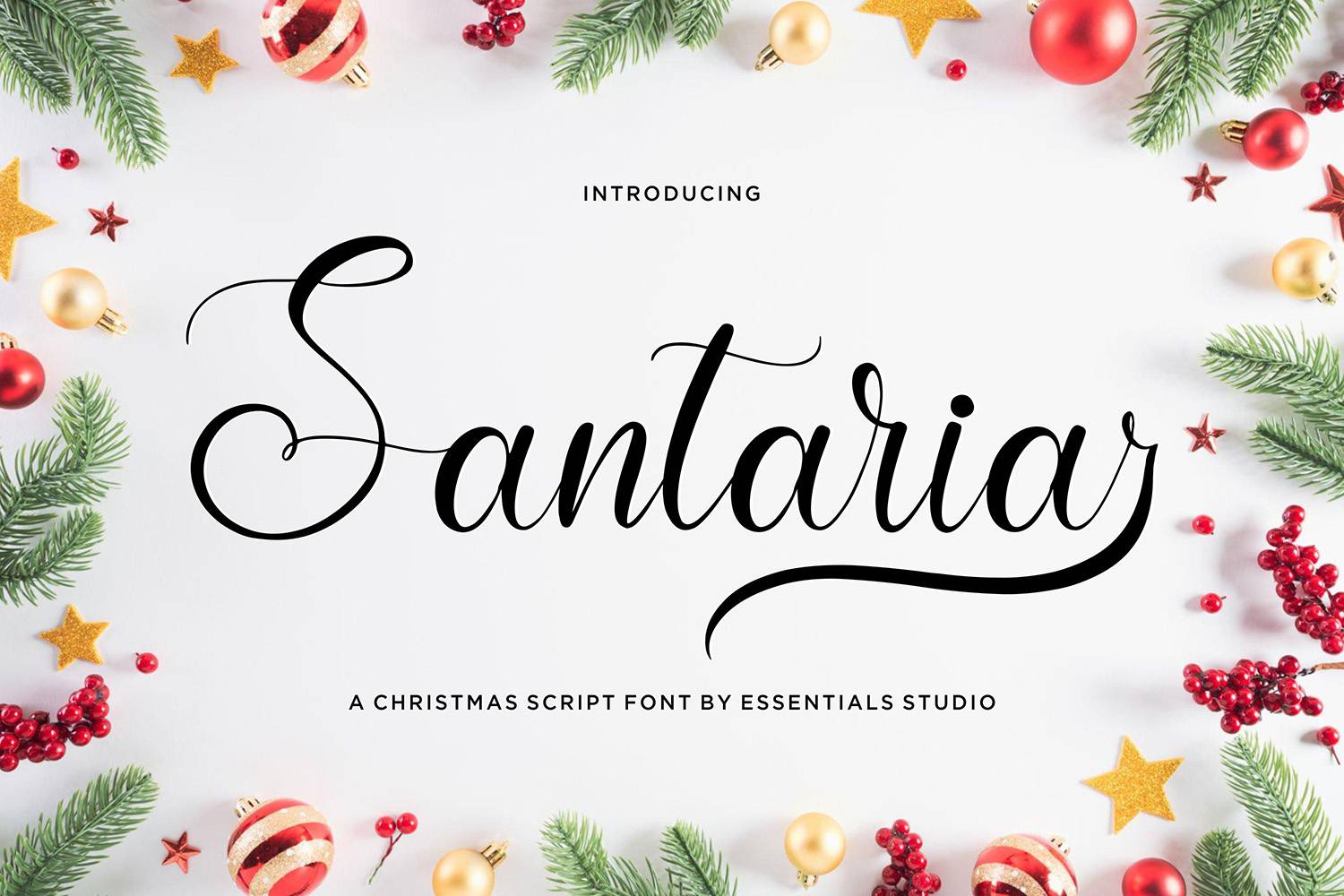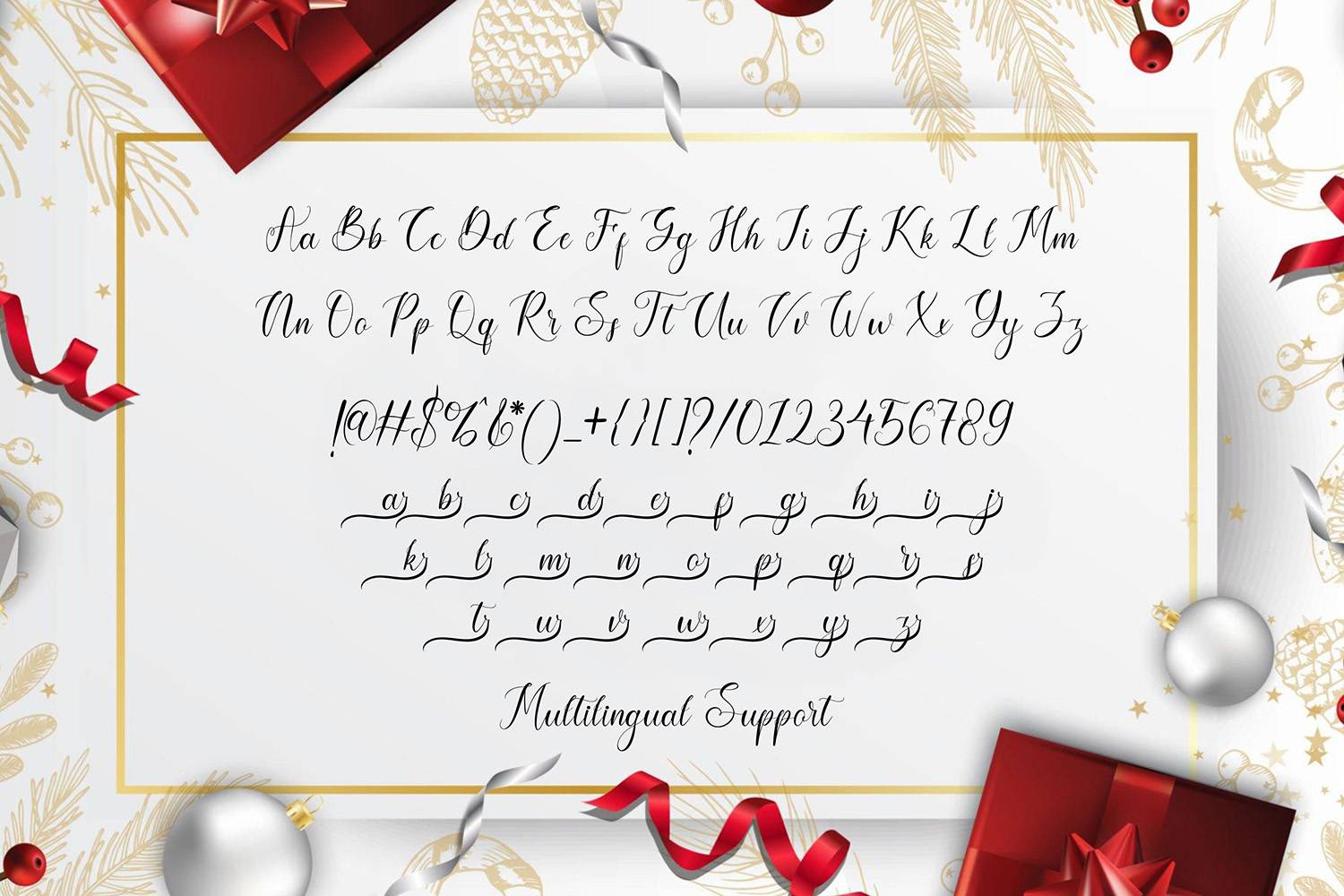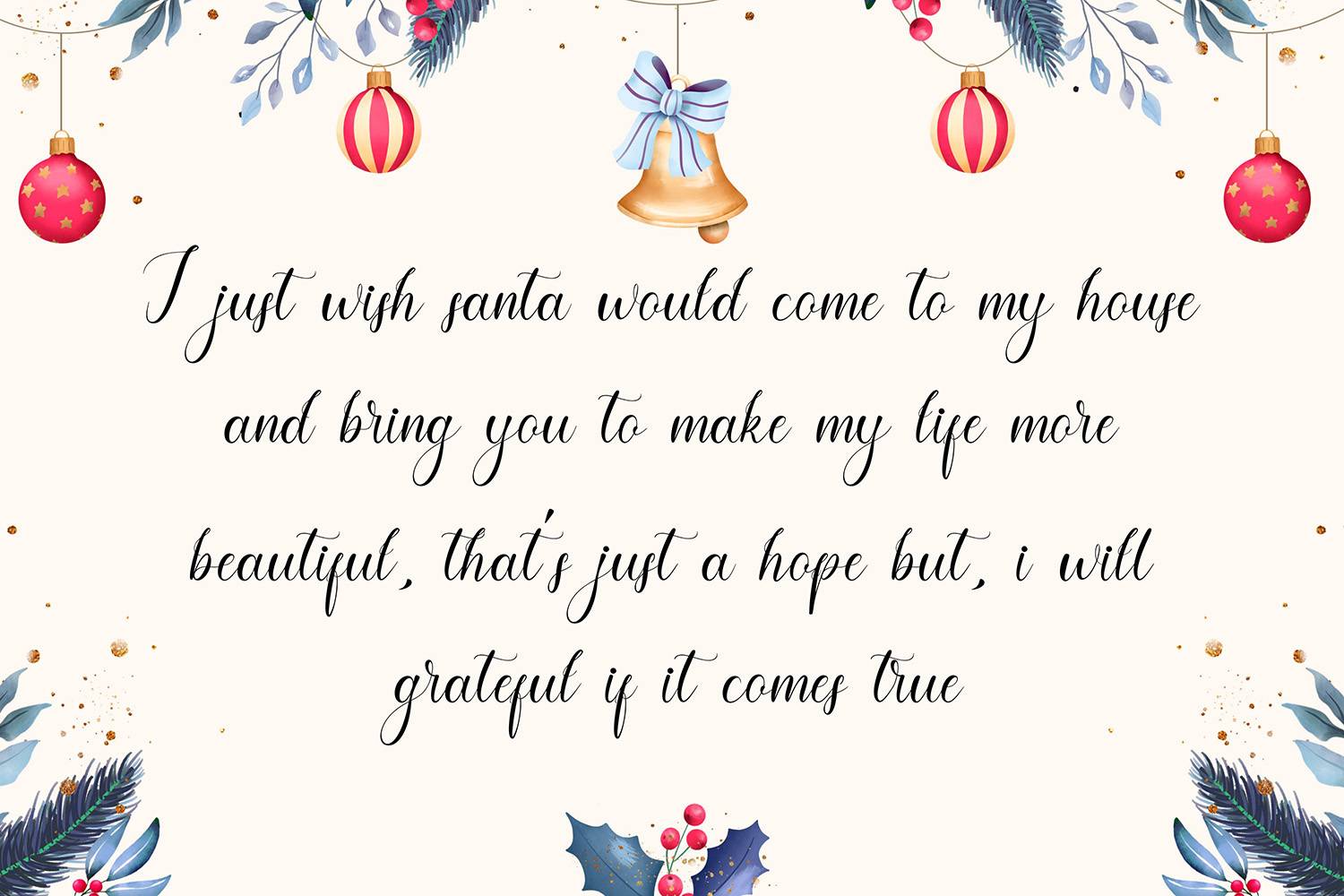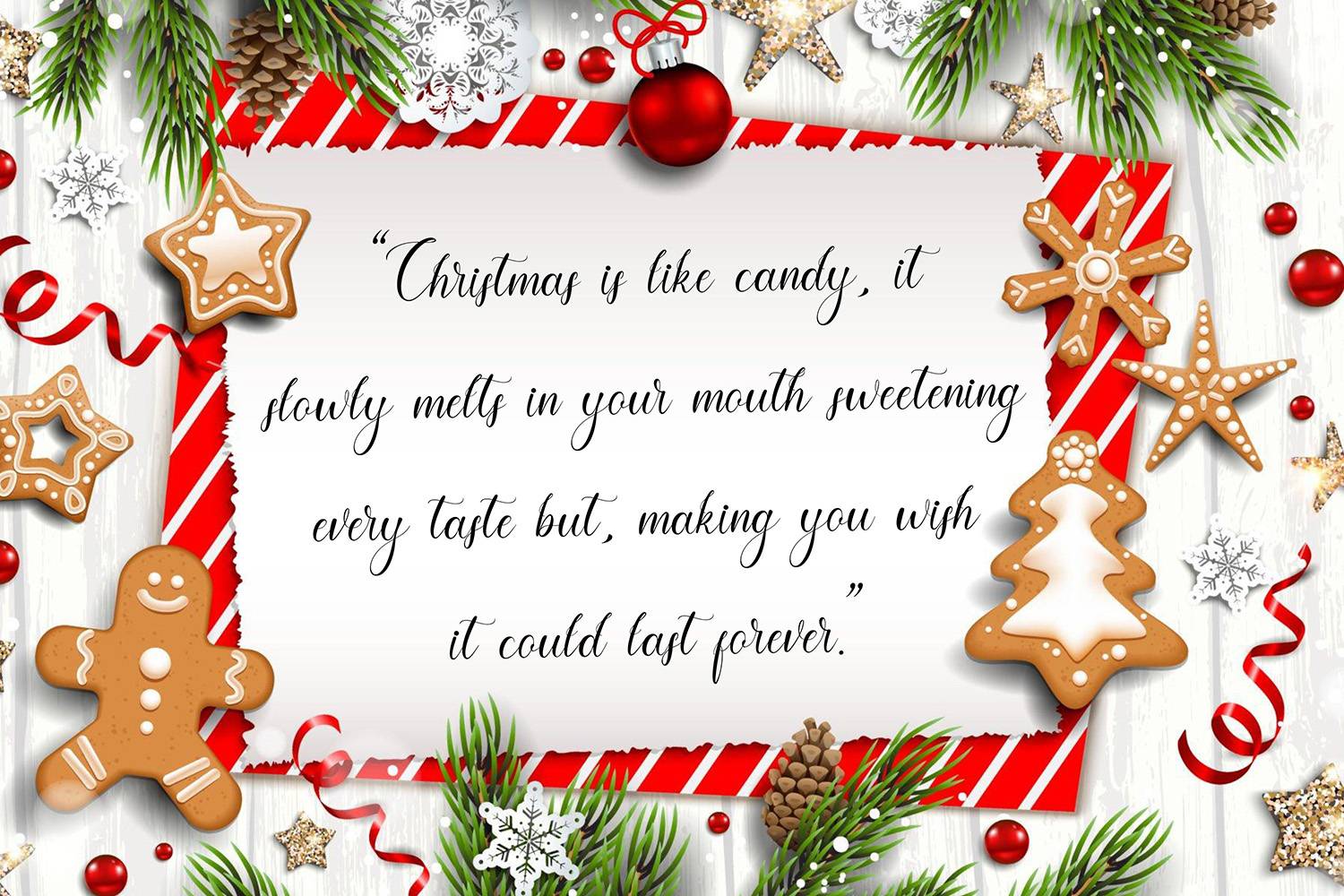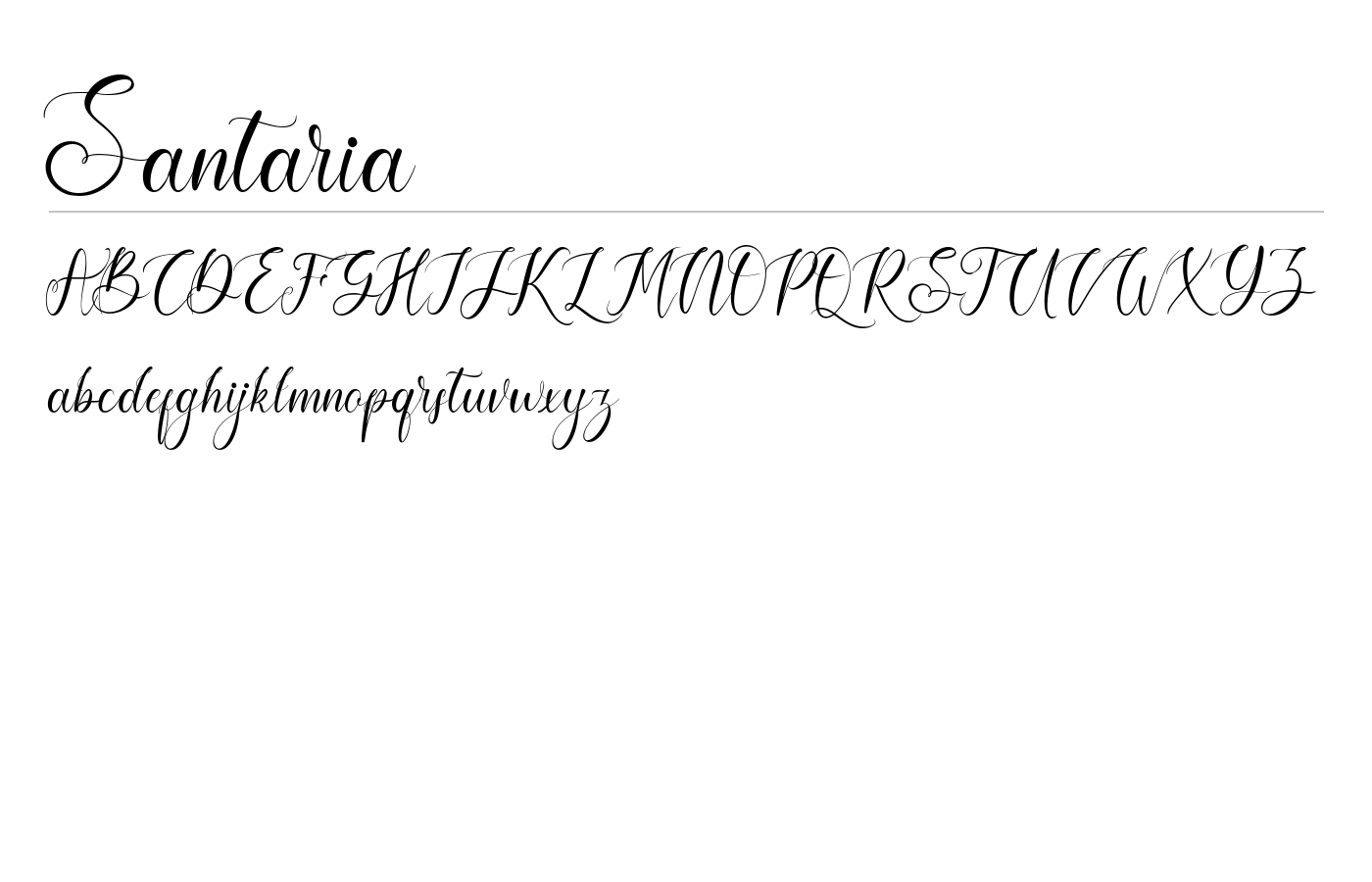
Santaria is an elegant script font with flowing, delicate strokes that create a sophisticated and graceful appearance. Its fine line weight and intricate swashes give it a luxurious and refined feel, making it ideal for upscale branding, wedding invitations, and stylish editorial designs. This font shines in settings where a touch of classic beauty and femininity is desired.
Santaria Font
About Santaria Font
| Font family | Santaria Font |
| Release date | 2022-11-23 |
| Designer | Bagus Panji Asmoro |